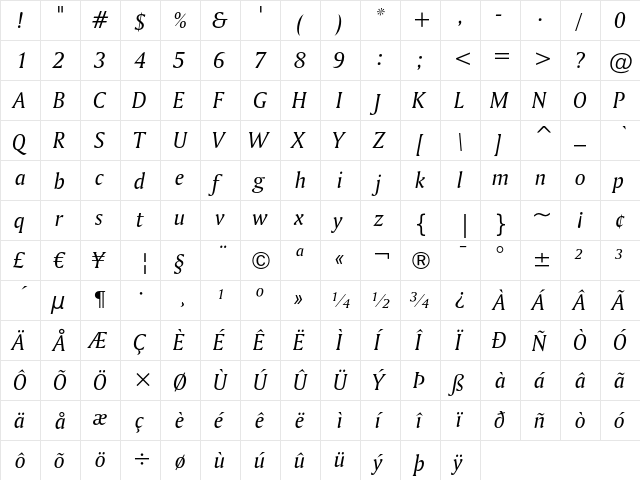
Bitstream Amerigo Italic
Design Context for Bitstream Amerigo Typeface
Bitstream Amerigo takes a measured approach to typography — its balanced proportions and neutral character make it a reliable workhorse for both digital and print work. The slanted form adds forward momentum and visual energy.
Pro Tip: Try Bitstream Amerigo for annotation and caption copy alongside an upright companion — the contrast in angle creates a dynamic but ordered typographic system.